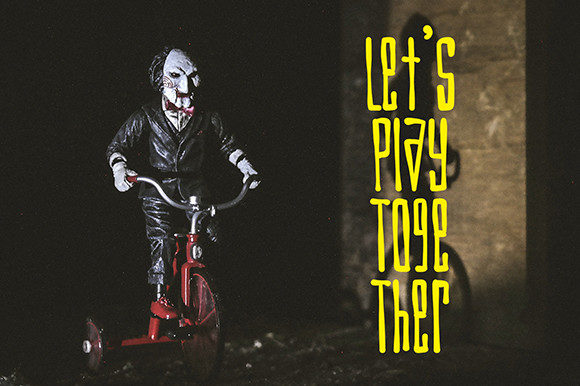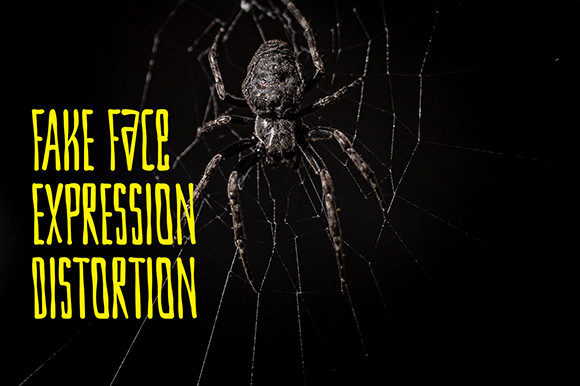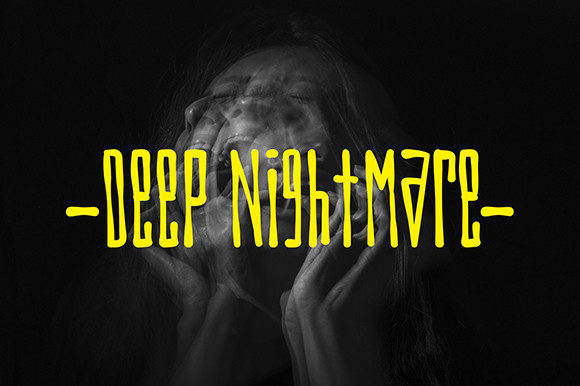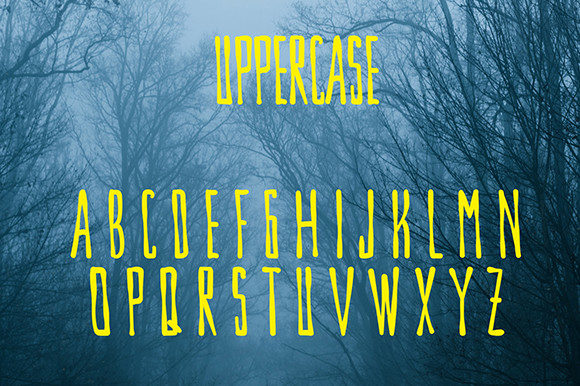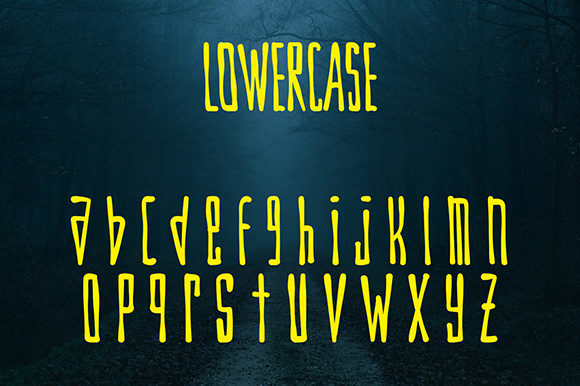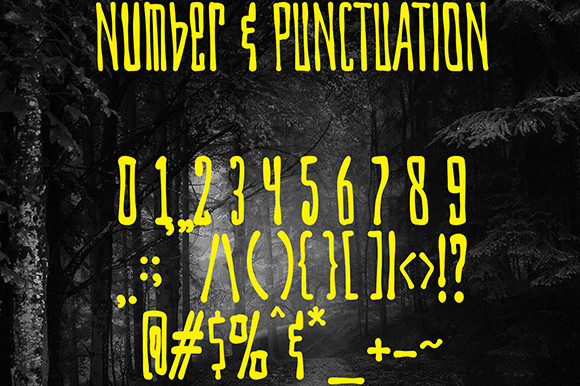
Unleash the Spook: Elevate Your Halloween Designs with BlackOut Font
As the witching hour approaches, designers and crafters are on the lookout for the perfect typography to add a spine-tingling touch to their October designs and Halloween parties. Look no further than the BlackOut Font, a horror and spooky display font that’s sure to send shivers down the spines of your audience. With its eerie and haunting appearance, BlackOut Font is the perfect addition to any Halloween-themed project, and the only limit is your imagination!
The BlackOut Font: A Spooky Display Font
BlackOut Font is a carefully crafted display font designed to evoke the eerie and mysterious atmosphere of the Halloween season. Its unique and haunting design makes it perfect for use in a variety of applications, from party invitations and decorations to social media graphics and blog posts. Whether you’re a designer, crafter, or simply a Halloween enthusiast, BlackOut Font is sure to add a touch of spooky sophistication to your projects.
Adding a Touch of Horror to Your Designs
With BlackOut Font, you can add a touch of horror and spookiness to your designs in a variety of ways. Here are a few ideas to get you started:
• Party Invitations: Create spooky party invitations that set the tone for a howling good time. Use BlackOut Font to add a haunting touch to your invitation design, complete with eerie graphics and creepy imagery.
• Social Media Graphics: Add a touch of spookiness to your social media graphics, from Facebook posts to Instagram stories. Use BlackOut Font to create eye-catching and eerie graphics that are sure to grab the attention of your followers.
• Blog Posts: Add a touch of horror to your Halloween-themed blog posts with BlackOut Font. Use the font to create attention-grabbing headlines and add a spooky touch to your content.
• Decorations: Use BlackOut Font to create spooky decorations for your Halloween party, from banners and signs to window clings and more.
The Benefits of Using BlackOut Font
So why choose BlackOut Font for your Halloween designs? Here are just a few benefits of using this spooky display font:
• Eerie and Haunting Design: BlackOut Font features a unique and haunting design that’s sure to add a touch of spookiness to your projects.
• Versatile: BlackOut Font is perfect for use in a variety of applications, from party invitations and decorations to social media graphics and blog posts.
• High-Quality: BlackOut Font is a high-quality font that’s designed to produce crisp and clear results, even at large sizes.
Tips and Tricks for Using BlackOut Font
Here are a few tips and tricks for using BlackOut Font in your Halloween designs:
• Experiment with Different Sizes: BlackOut Font looks great at a variety of sizes, from small and subtle to large and bold. Experiment with different sizes to find the one that’s right for your project.
• Pair with Other Fonts: BlackOut Font pairs well with a variety of other fonts, from bold and modern to elegant and script. Experiment with different font combinations to find the one that’s right for your project.
• Add a Touch of Color: BlackOut Font looks great in a variety of colors, from bold and bright to dark and muted. Experiment with different colors to find the one that’s right for your project.
Font Name BlackOut Font
Author esaprasetio
BlackOut Font is a horror and spooky display font that’s perfect for adding a touch of eerie sophistication to your Halloween designs. With its unique and haunting design, BlackOut Font is sure to send shivers down the spines of your audience. Whether you’re a designer, crafter, or simply a Halloween enthusiast, BlackOut Font is the perfect addition to any October design or Halloween party. So why wait? Download BlackOut Font today and unleash the spook in your designs!